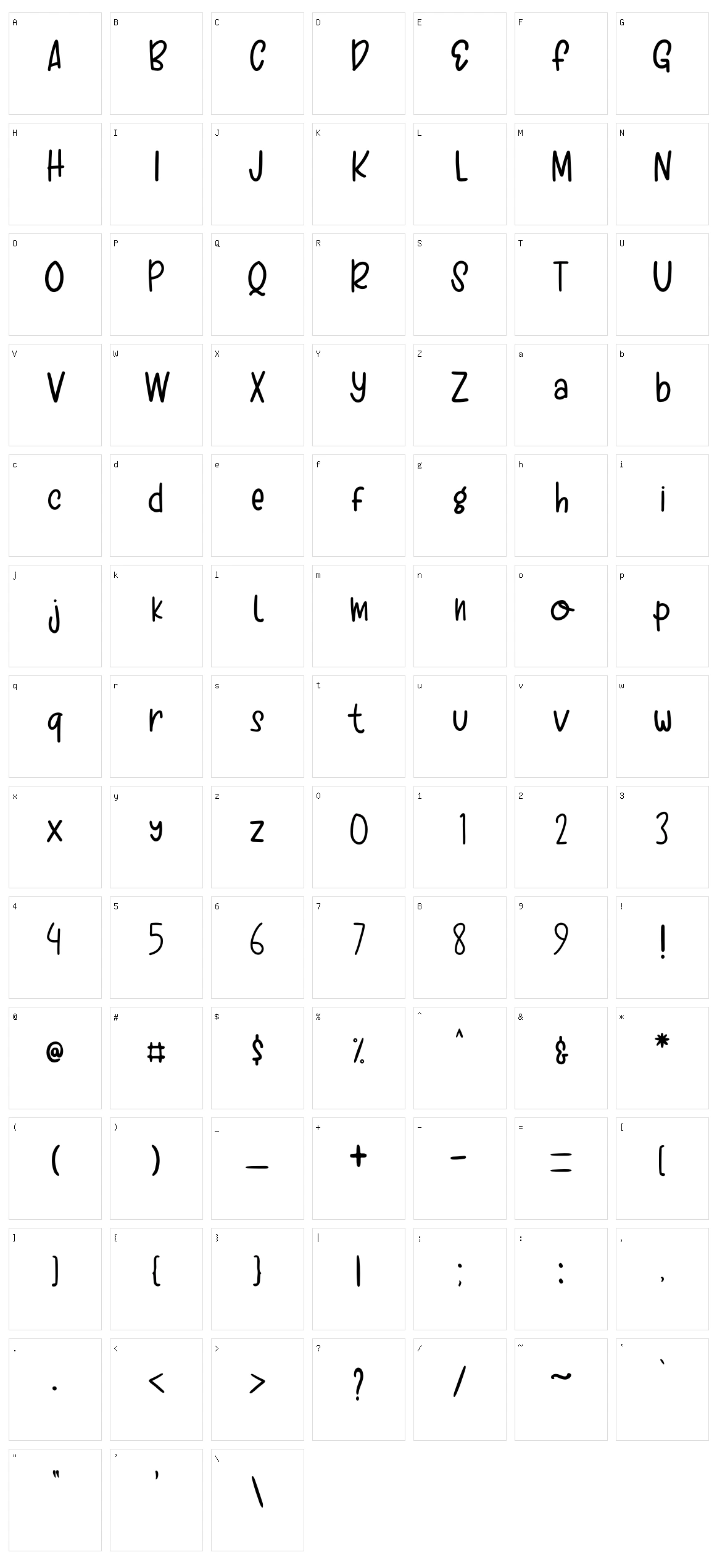
The free font Sour Dough is carefully designed by Booga Letter, showcasing a thoughtful balance of creativity and usability and falls under the Script font style. When you download the ZIP file, it contains only 29.04 KB of font files, making it lightweight and quick to download. Please review the license details below to understand permitted usage and distribution rights. If license information is not available, we recommend using this font for personal projects only or contacting the author directly for commercial usage permissions.